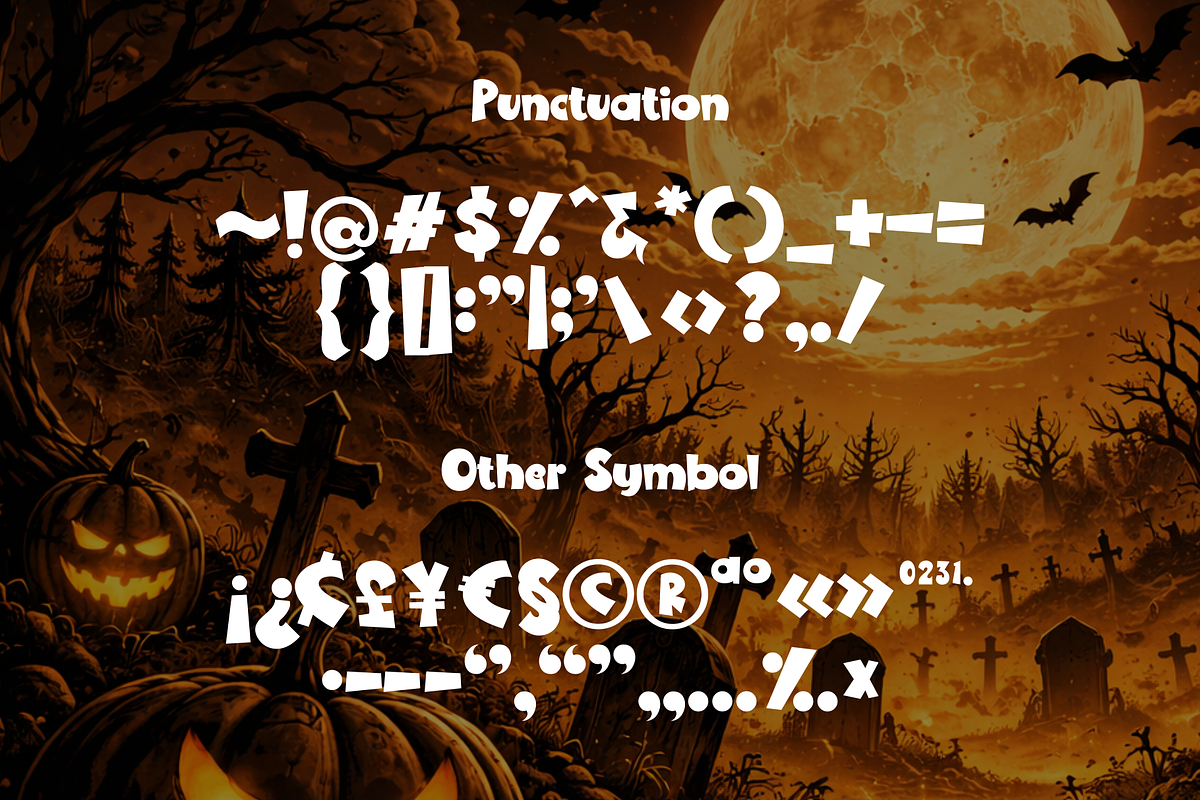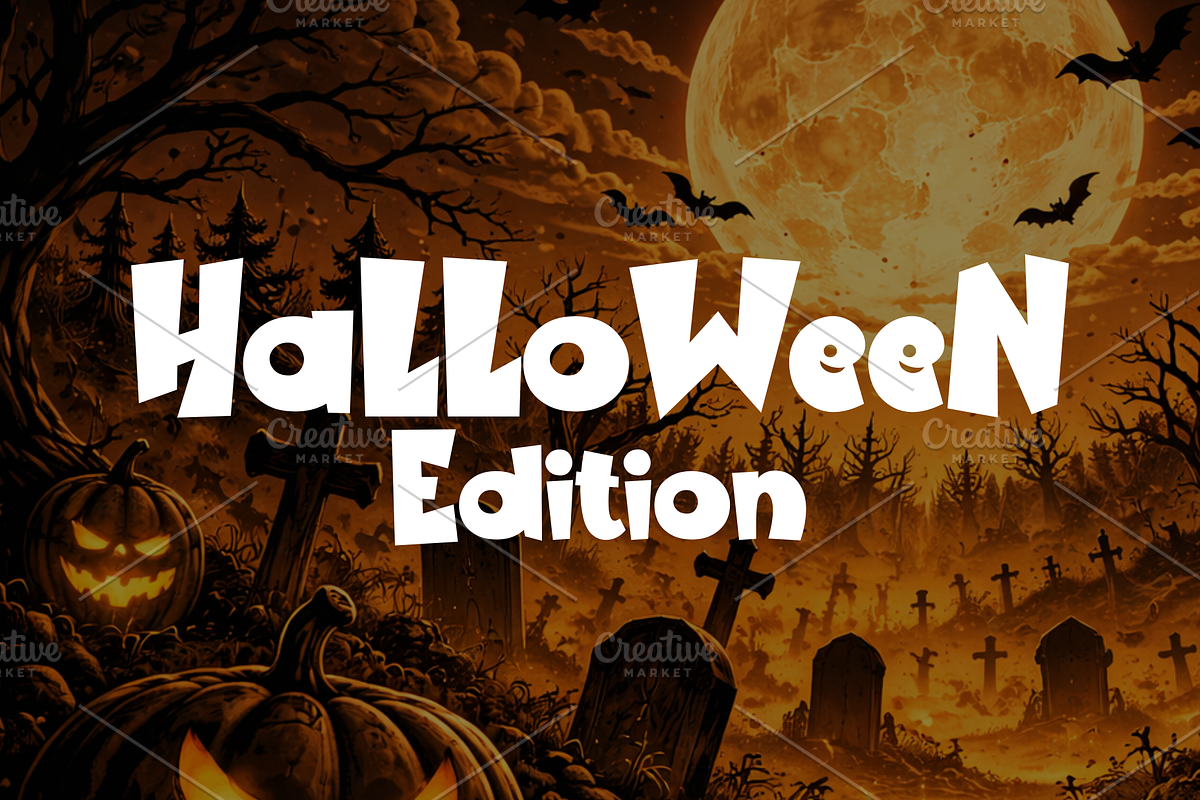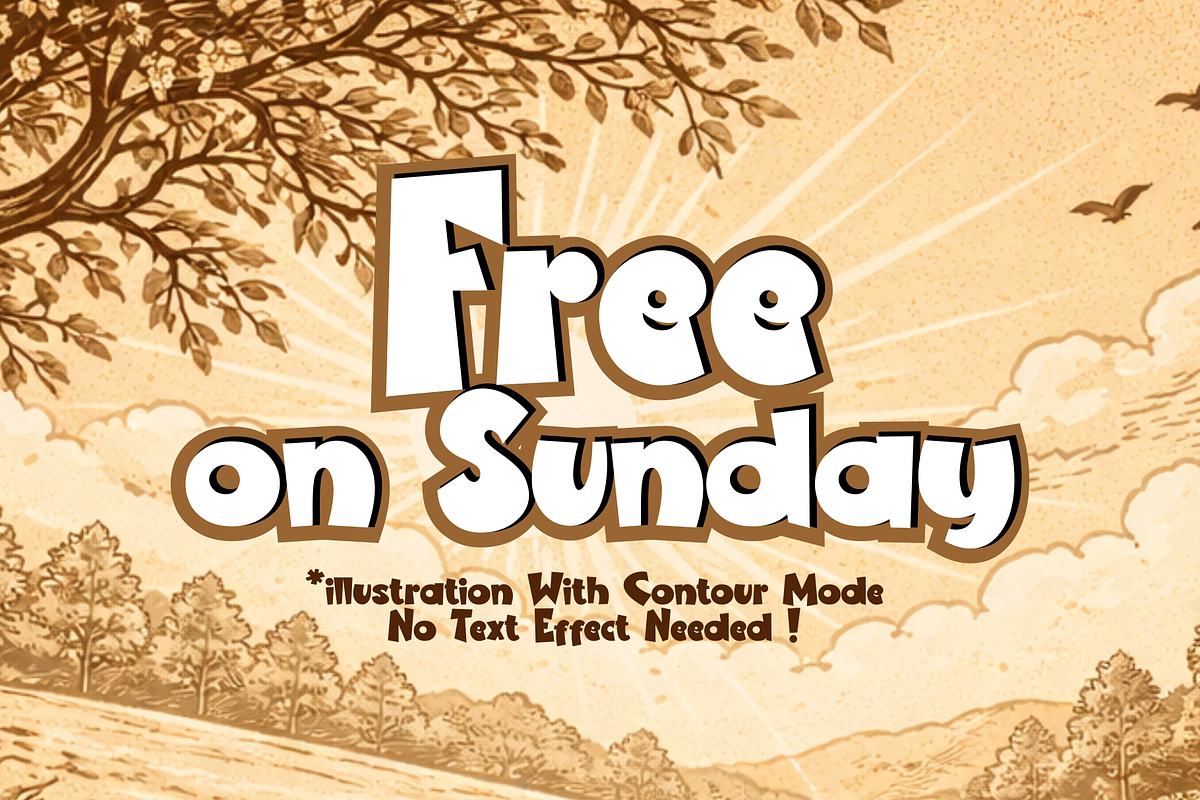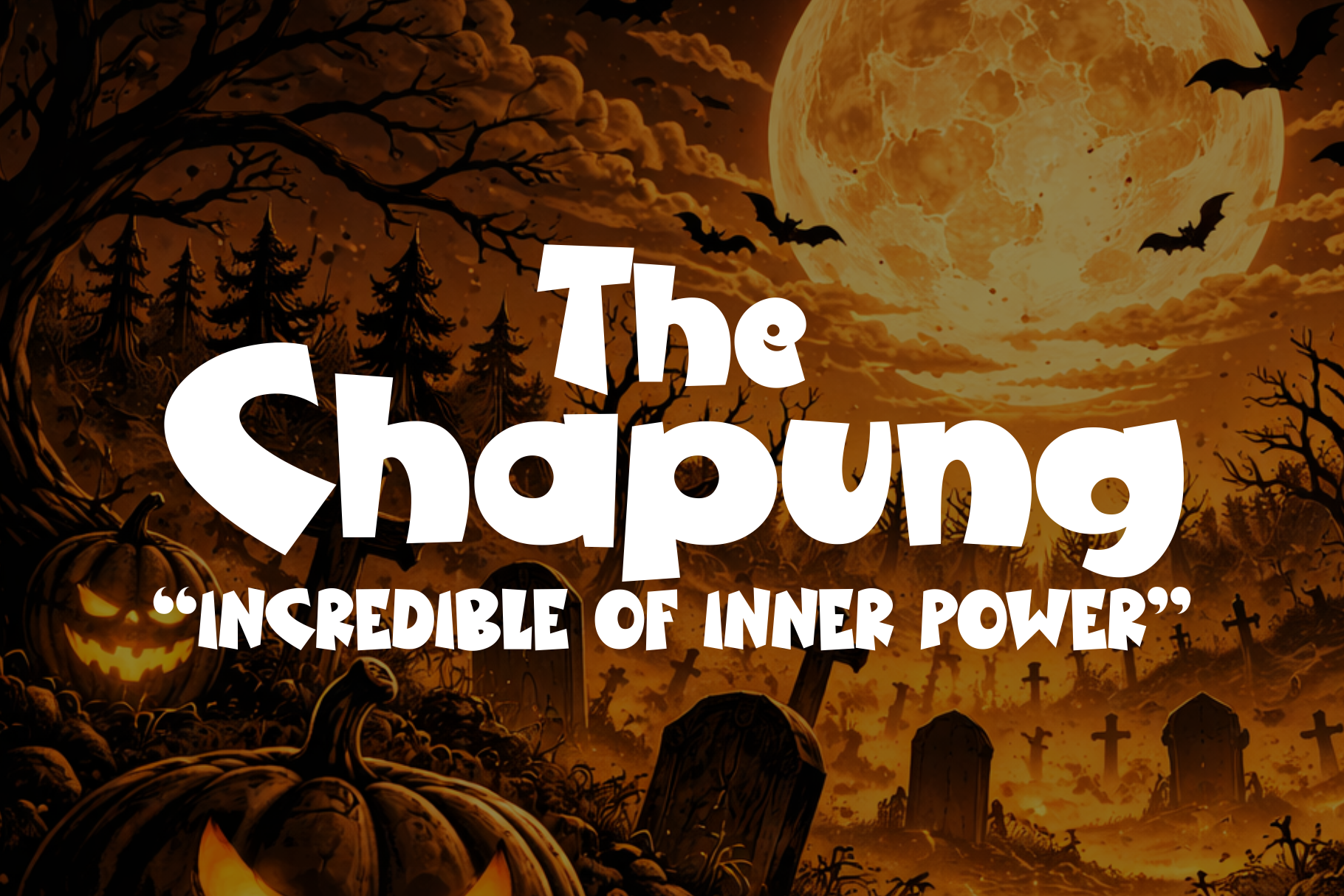
The Chapung Font
The Chapung is a bold, powerful font designed to express strength and confidence. Perfect for posters, t-shirts, social media quotes, and Canva templates, it helps your designs stand out and deliver impactful messages with a strong visual presence.